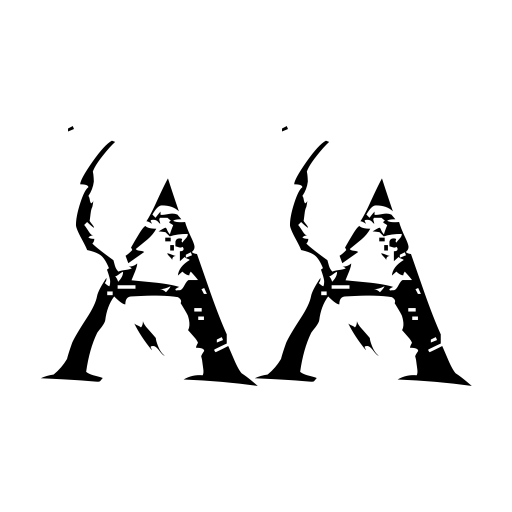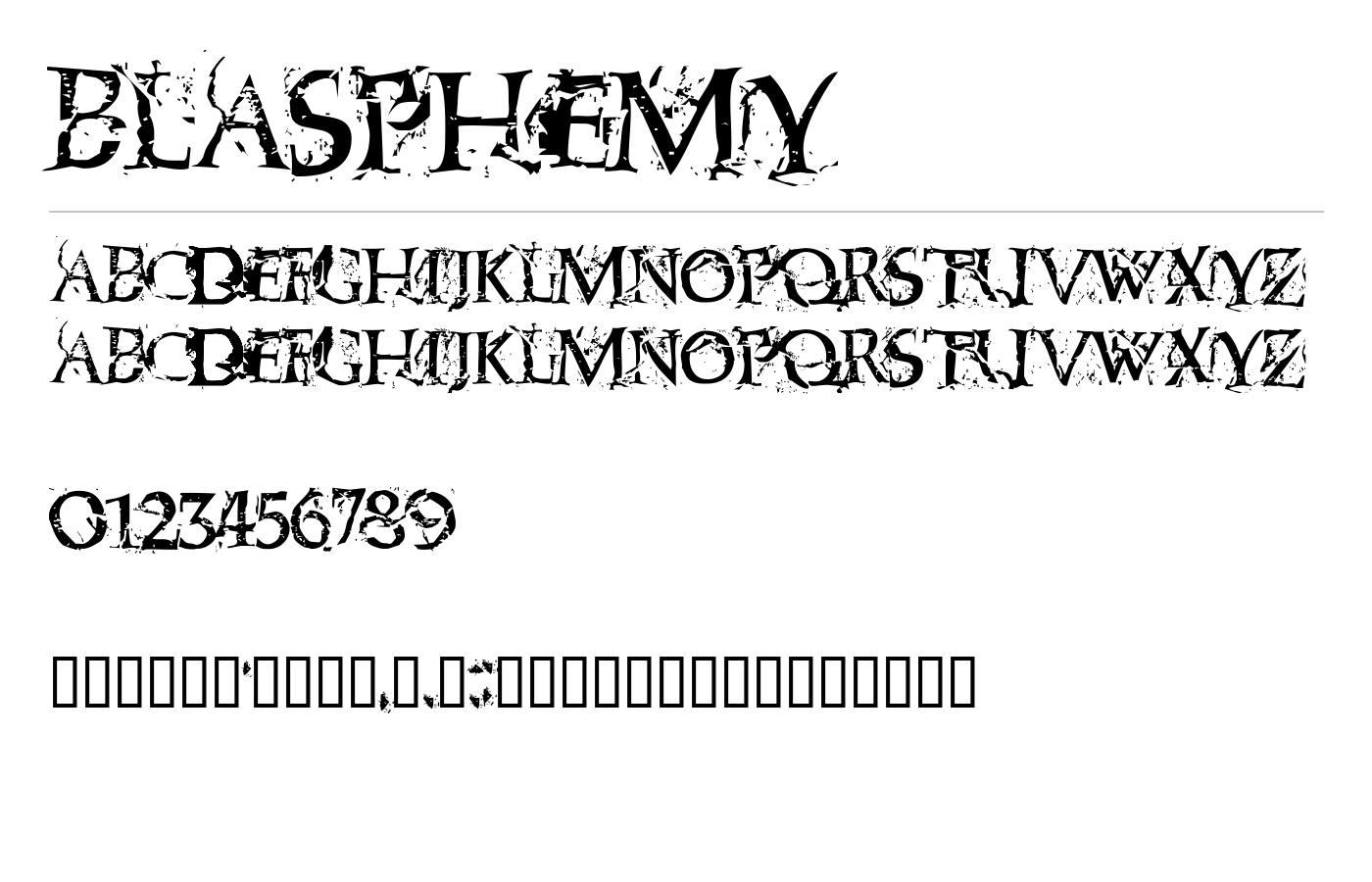
Blasphemy is a distressed serif font with sharp, irregular edges and a worn, grunge texture that gives it a raw and rebellious character. Its high contrast strokes and angular letterforms create a striking and intense appearance, making it ideal for edgy designs and bold statements. This font works best in posters, logos, and branding projects that seek to convey a dark, alternative, or underground vibe.
Blasphemy Font
About Blasphemy Font